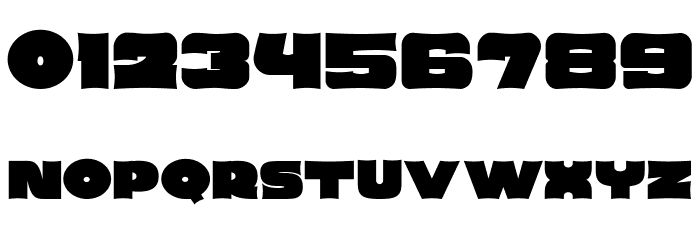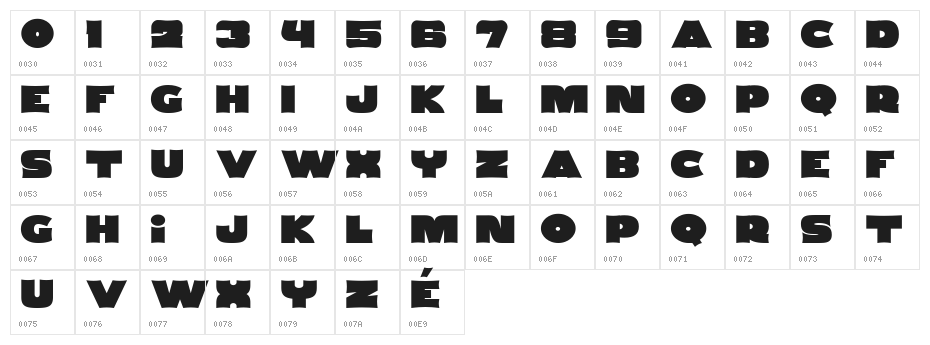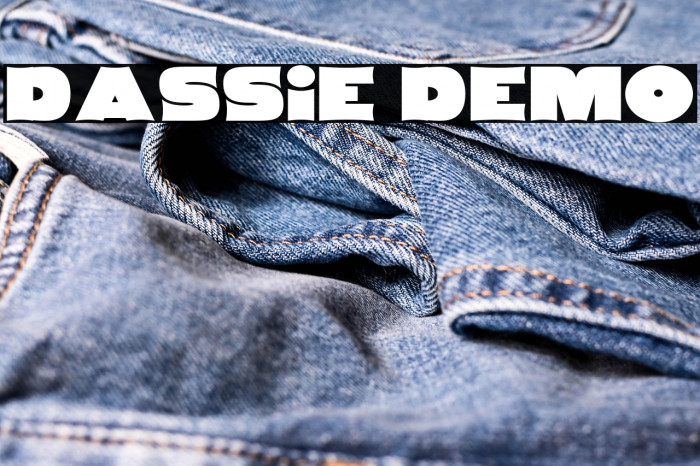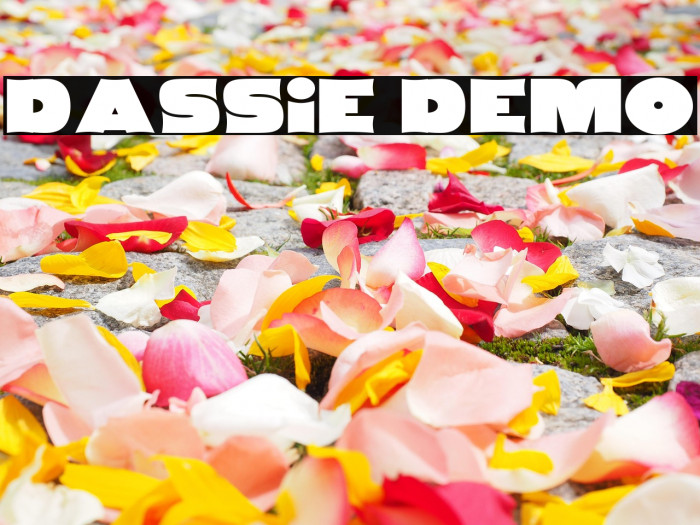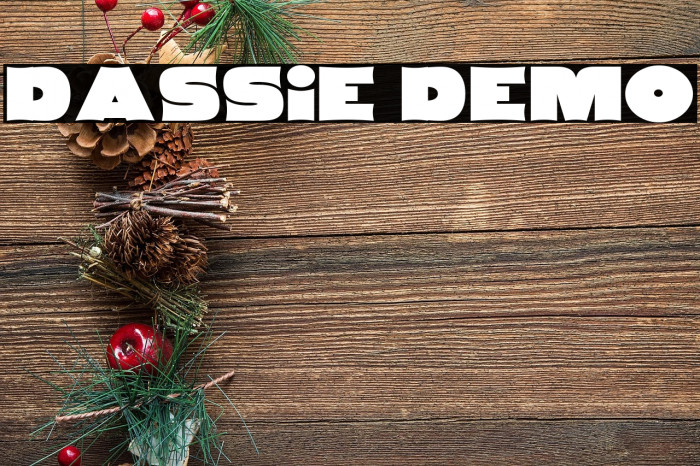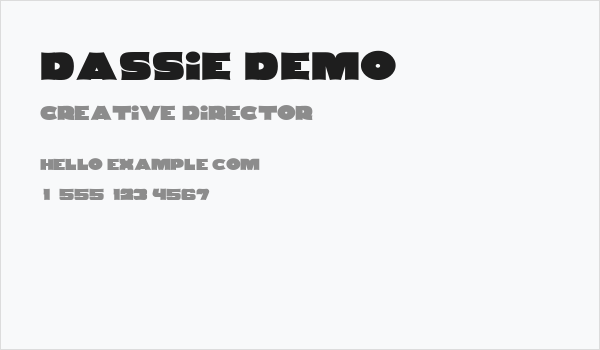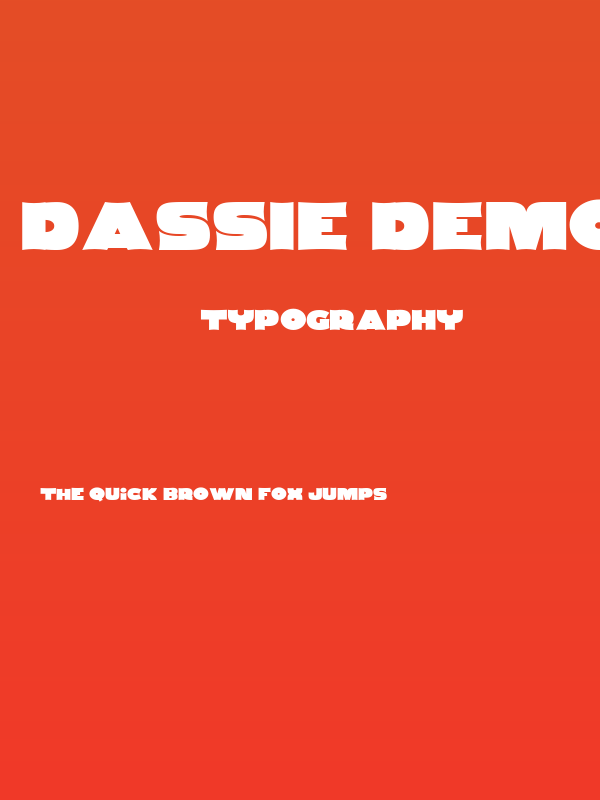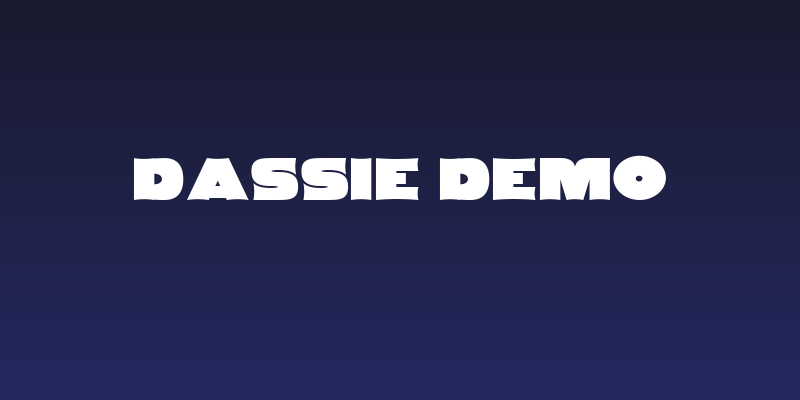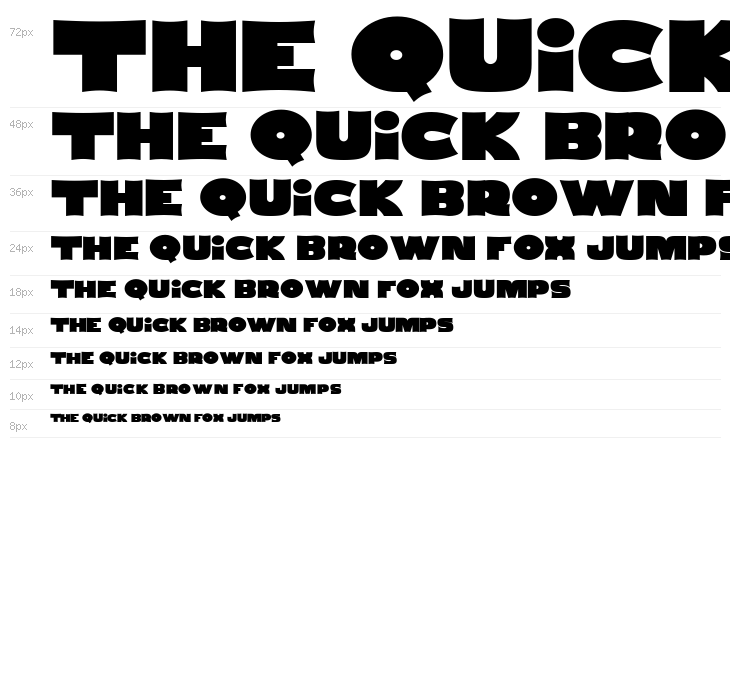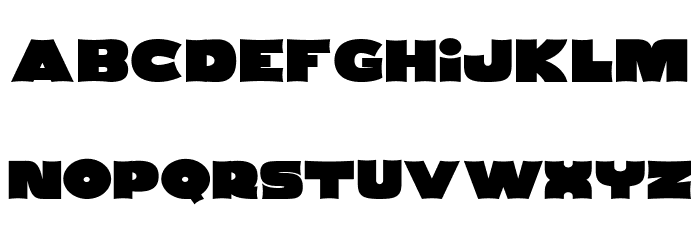
Dassie DEMO Font
Dassie DEMO Description
This font features bold, blocky characters with a unique, playful style. The letters are heavily stylized with thick strokes and a distinct geometric influence, giving them a strong presence. The uppercase and lowercase letters maintain a consistent weight, while the numbers and special characters follow the same design principles, ensuring uniformity across all glyphs. The font's boldness and distinctive shapes make it ideal for attention-grabbing designs. Its decorative nature is evident in the exaggerated curves and angles, which add a touch of whimsy and creativity.
| Proposed Projects | Ideal for posters, logos, and branding projects that require a strong visual impact. |